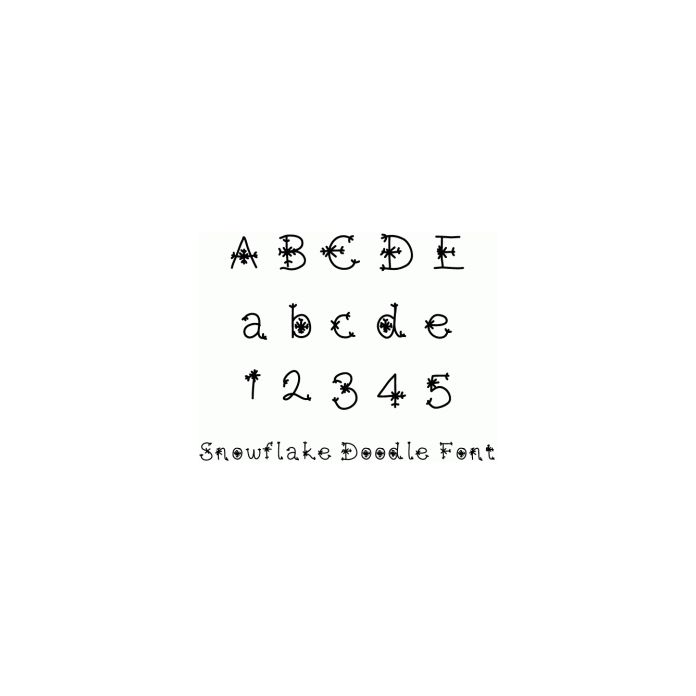
Snowflake Doodle hand written font. For more design ideas, coordinating designs & products and inspiration, please visit my blog http://www.sarahhurley.blogspot.com